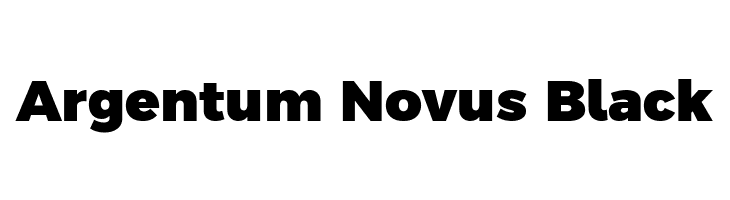
An elegant script font with flowing, calligraphic letterforms and intricate swashes.
A bold, geometric font with an angular, octagonal design and a three-dimensional effect.
A geometric, decorative font inspired by classical proportions and Renaissance art.
A modern, condensed sans-serif font with a clean and professional appearance.
A bold slab serif font with strong, uniform strokes and block-like serifs.
A bold, futuristic font with geometric shapes and strong presence.
A sophisticated serif font with an elegant italic style and moderate contrast.
A high-contrast serif font with elegant, sharp serifs and a modern classic style.
A bold, italicized font with strong, thick strokes and a modern, dynamic style.
An elegant, flowing script font with a handwritten style.
A modern, outlined font with a double-line effect for a bold, geometric look.
A playful, bold font with a 3D extruded effect and rounded, cartoonish style.
A bold, geometric typeface perfect for impactful headlines.
A modern, geometric sans-serif font with balanced proportions and a professional appearance.
A dynamic and fluid script font with elegant, flowing curves.
A bold, outlined font with a modern and playful aesthetic.
A classic serif font with elegant strokes and high contrast, ideal for traditional and sophisticated designs.
A modern oblique font with sharp angles and a sleek, dynamic style.
A bold, thick-stroked font with a strong, impactful presence.
A bold, italic serif font with a classic and authoritative style.
A casual, handwritten font with a playful and informal style.
A calligraphic font with bold, sweeping strokes and dynamic contrast.
A bold, expanded font with a modern and impactful style.